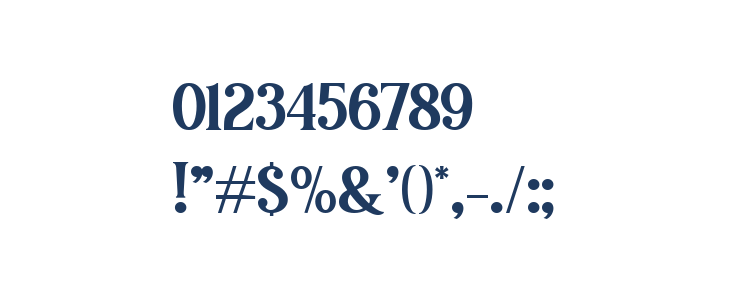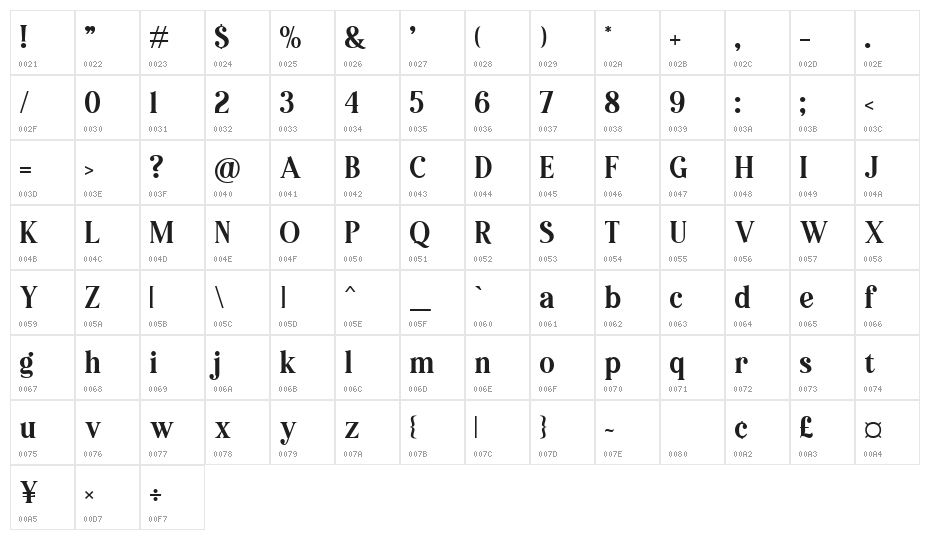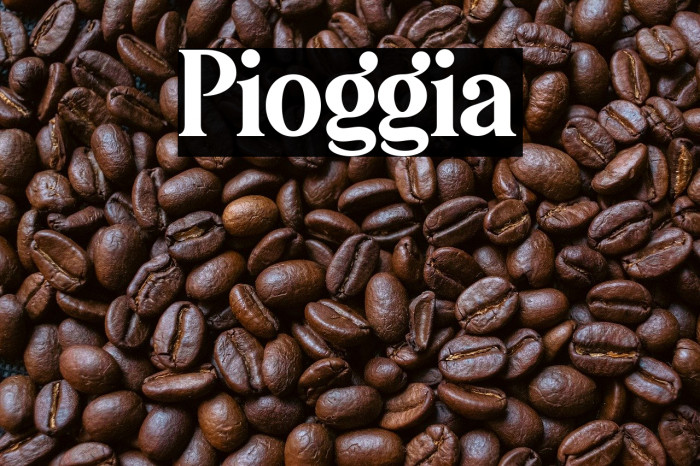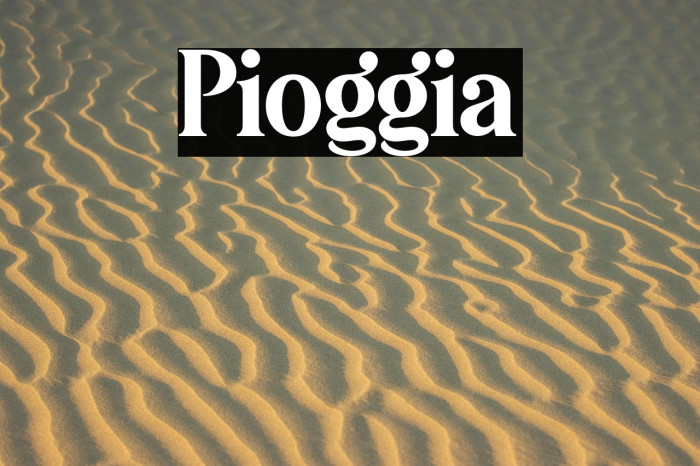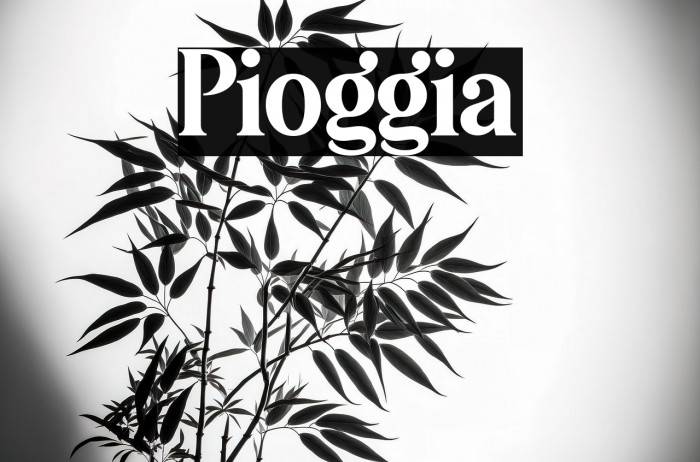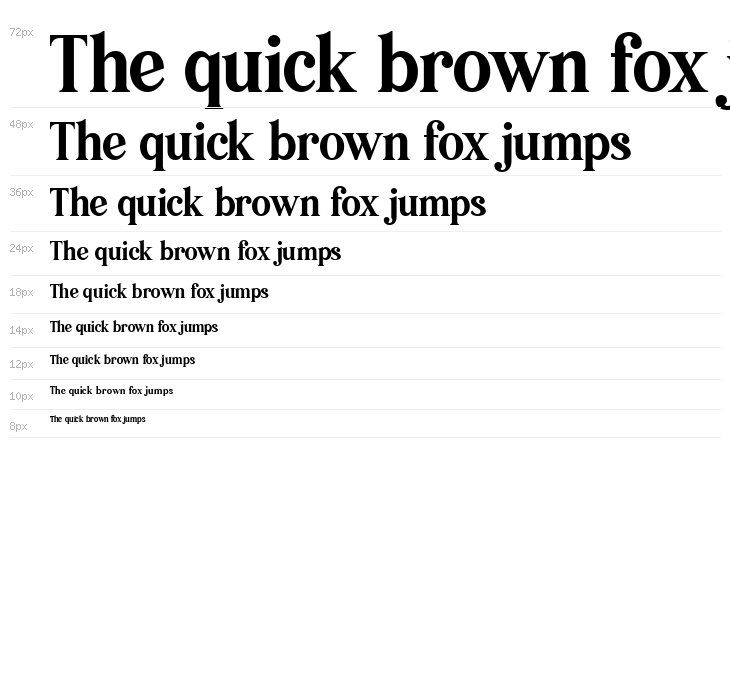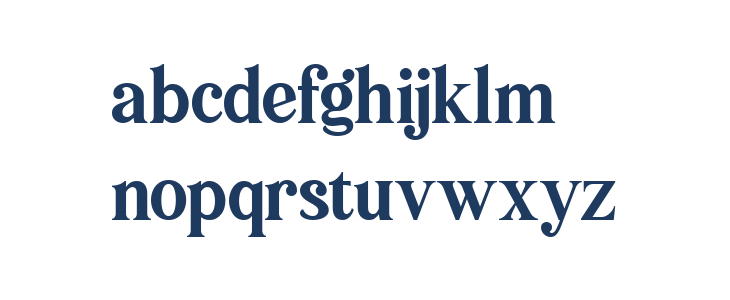
Pioggia Font
Pioggia Description
This font exhibits a classic serif style with a strong presence and elegant curves. The uppercase letters are bold and commanding, while the lowercase letters maintain a consistent flow with slightly rounded edges. The numerals are well-proportioned, aligning seamlessly with the overall aesthetic. Special characters are distinct and maintain the font's sophisticated look. The strokes vary in thickness, providing a medium contrast that enhances readability and visual appeal. This font is versatile, suitable for both traditional and modern applications, making it ideal for a wide range of design projects.
| Proposed Projects | Ideal for editorial design, book covers, branding, and formal invitations. |